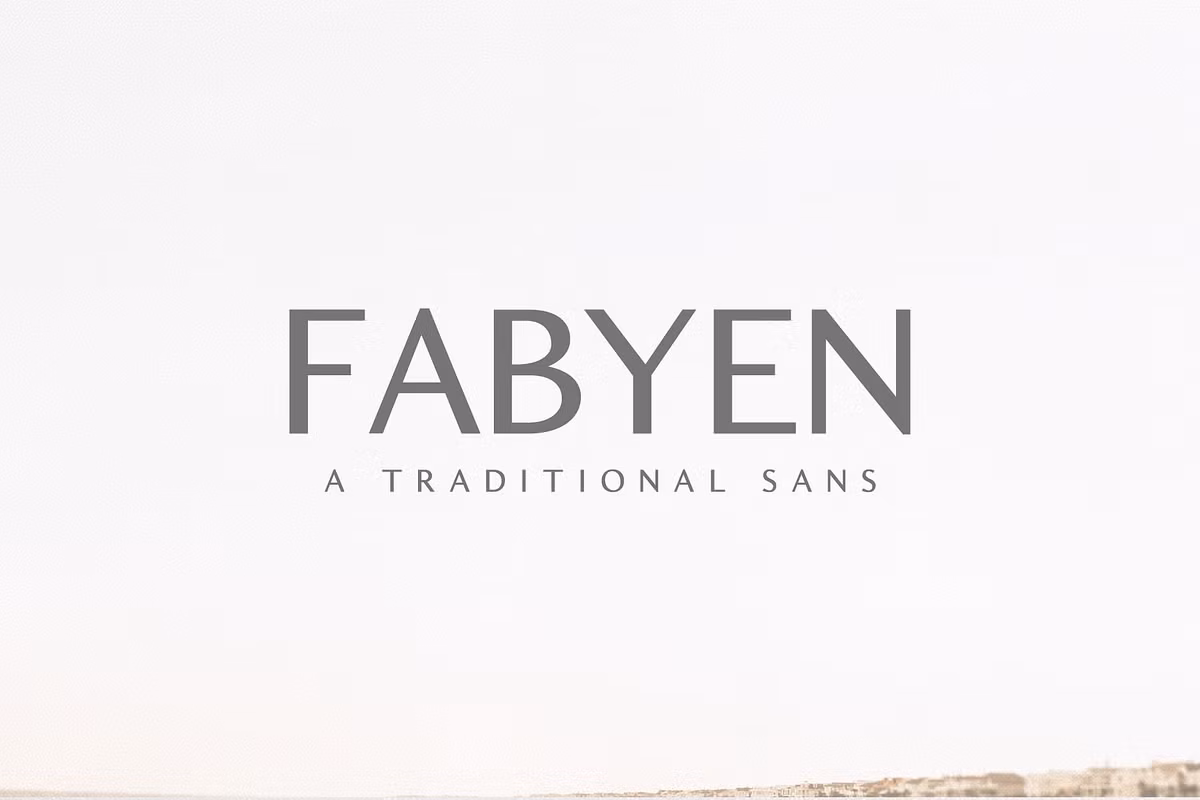
Fabyen A Traditional Sans Font Pack Free Download is a clean and timeless typeface collection designed for clarity, professionalism, and versatility. Rooted in classic sans-serif design principles, this font pack is ideal for corporate branding, editorial layouts, presentations, website headers, and minimalist design projects where readability and structure are key.
With multiple weights and styles included, Fabyen offers flexibility for both headline and body text, maintaining consistency across various design elements. Its straightforward aesthetic makes it a reliable choice for any project that needs a modern yet traditional feel.
Whether you’re working on business materials or creative visuals, Fabyen A Traditional Sans Font Pack Free Download gives you the tools to craft elegant and effective typography. Feel free to try it out in your personal projects, and don’t forget to purchase the commercial license when you’re ready to use it professionally.